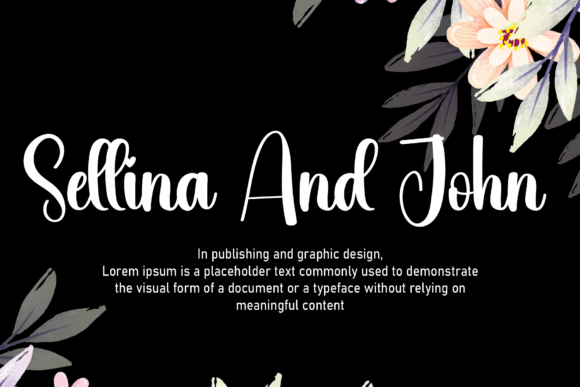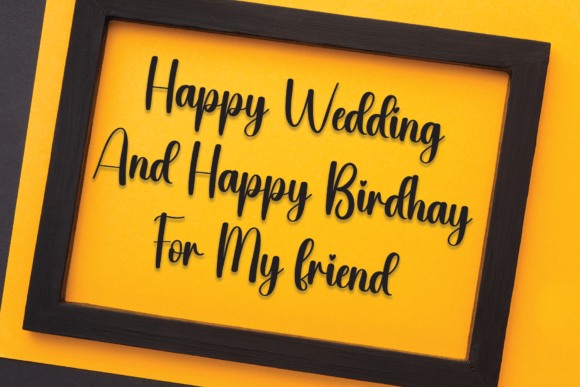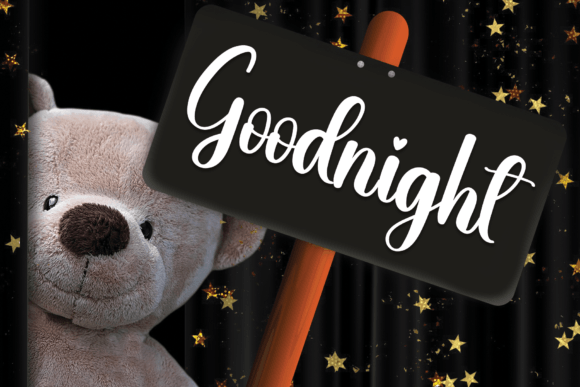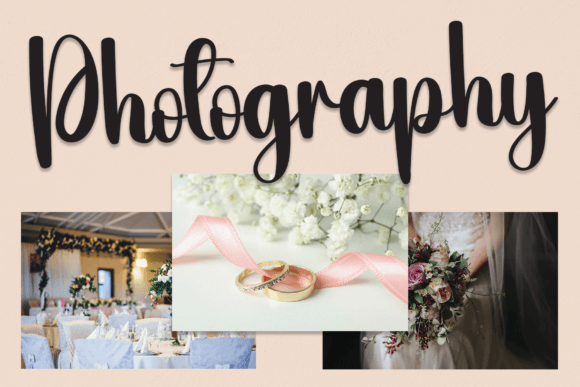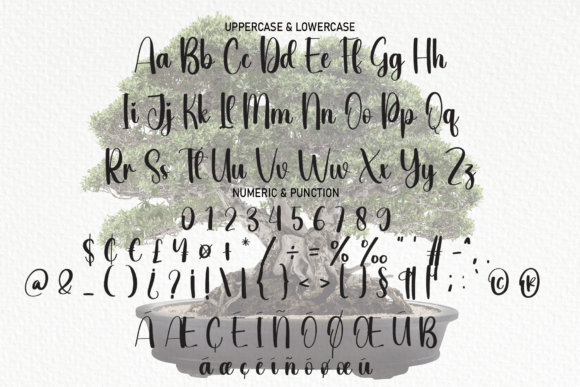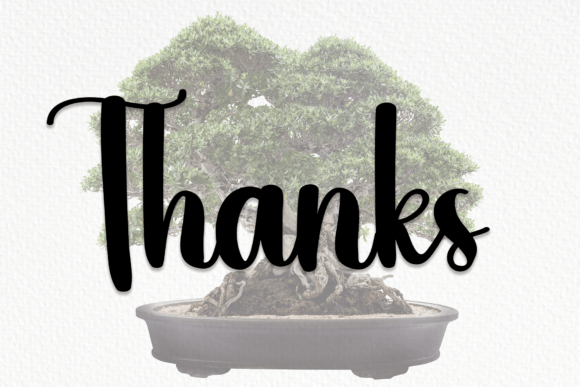
Bonsai Font
Add Joyful Romance with Bonsai Font
The Bonsai font is a sweet and cursive handwritten script designed to bring warmth and elegance to your creative projects. Its gentle strokes and flowing letters create a romantic vibe that enhances any design. Whether you’re working on branding, invitations, or digital art, Bonsai adds charm and personality.
Perfect for Romantic Designs and Branding
The Bonsai font works beautifully on wedding invitations, greeting cards, social media graphics, product packaging, and more. Its delicate style enhances the emotional appeal of your work, making every project feel personal and inviting. The font’s joyful and handcrafted character adds a unique flair to your designs.
A Cursive Handwritten Script Full of Character
Each letter in the Bonsai font is crafted with care to ensure smooth flow and natural movement. The cursive strokes create a dynamic and visually pleasing appearance that elevates your text. This font is perfect for headings, logos, quotes, and any project needing a joyful and romantic touch.
Despite its decorative flair, the Bonsai font maintains excellent readability across various sizes. Whether used for large titles or smaller text accents, it balances beauty and clarity, making it a versatile choice for many design projects.
Make Your Designs Shine with Elegance
Typography sets the tone for your work, and Bonsai adds a joyful, romantic spirit. Perfect for creatives seeking a handcrafted cursive font, download the Bonsai font today and elevate your projects with warmth and style.